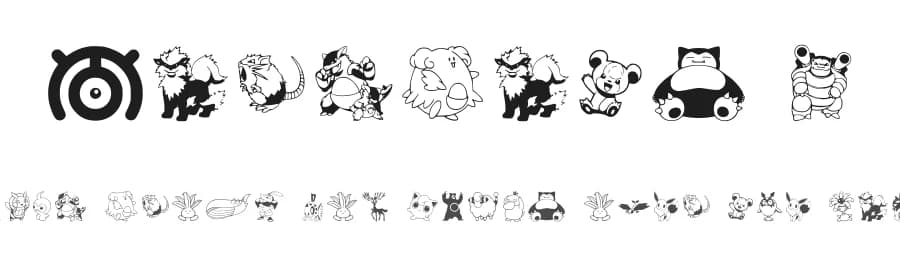
About Markbats 9 Font
Markbats 9 is the ninth installment of the Markbats font family. It is a Pokémon-themed font consisting of various Pokémon up to Generation 7.
Markbats 9 Font is a versatile dingbats font that works for both headings and body text. Pair it with a contrasting sans-serif or serif font to add visual interest and a clear distinction between titles and body copy.